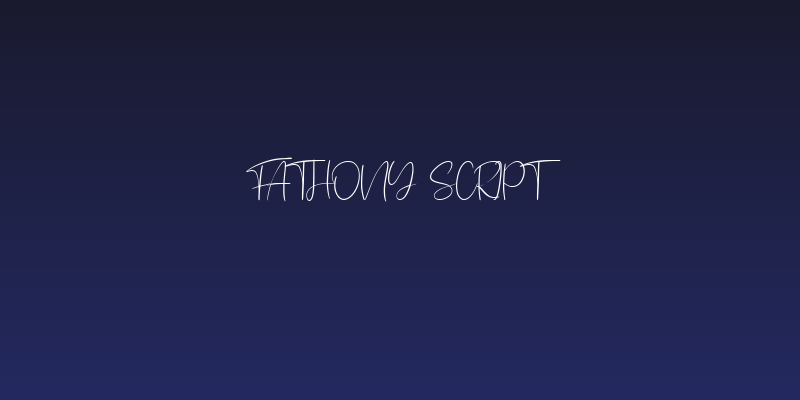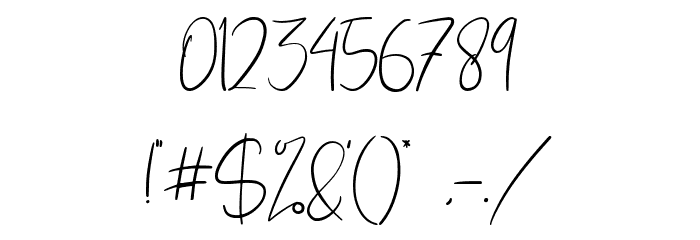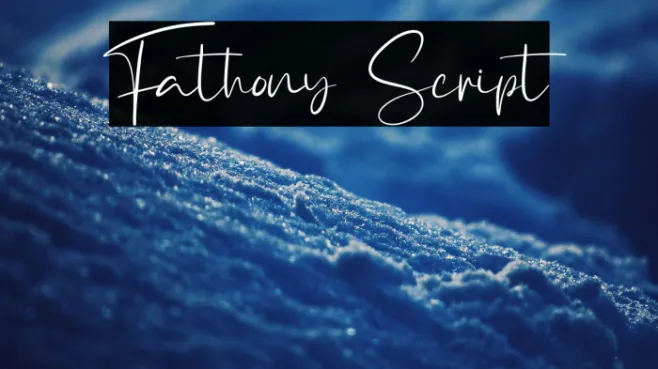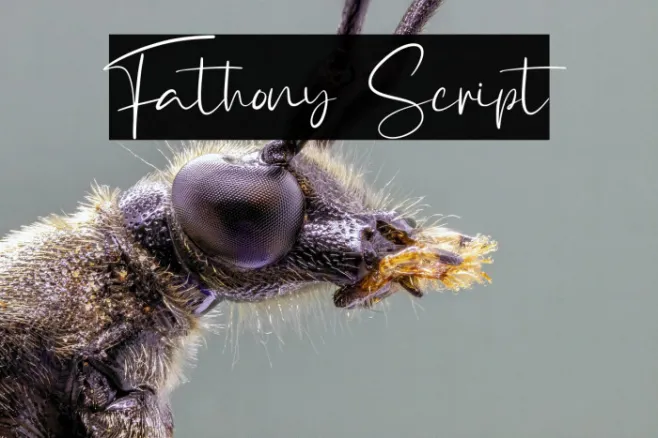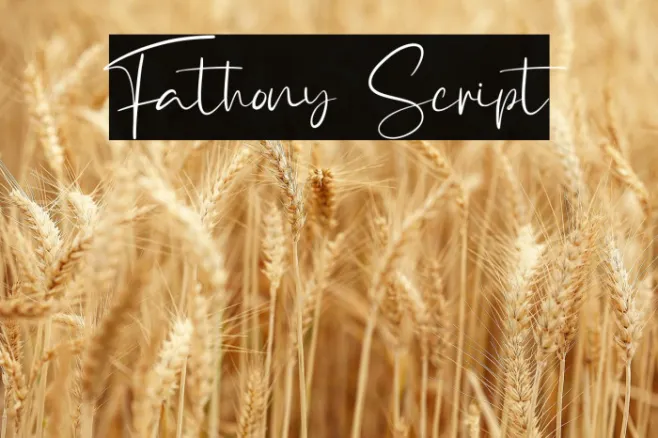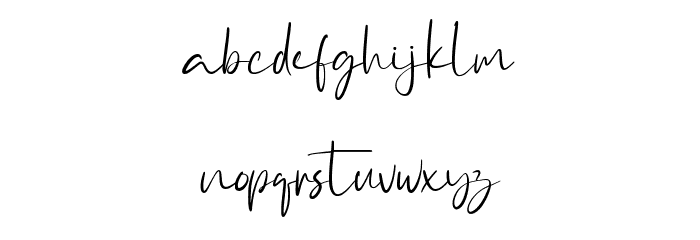
Fathony Script Font
Fathony Script Description
This font exudes a playful and elegant script style, characterized by its flowing, cursive letterforms. The strokes are smooth and fluid, giving it a handwritten appearance with a modern twist. The uppercase letters are particularly expressive, with exaggerated loops and swirls that add a touch of whimsy. The lowercase letters maintain a consistent flow, complementing the uppercase with their graceful curves. The numerals and special characters are crafted with the same attention to detail, ensuring a cohesive look across all glyphs. This font is ideal for projects that require a personal touch, such as invitations, greeting cards, or branding materials.